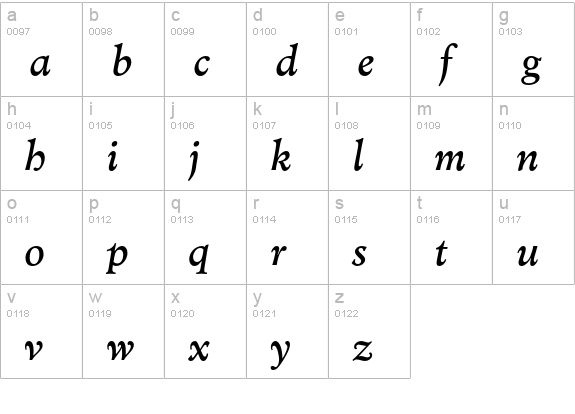
Minister Book Italic Font Details
Minister Book Italic is a comfortable, highly readable, italic variant in the Minister typeface family \xE2\x80\x94 well suited to long-form body text, articles, and editorial content.
Minister Book Italic font exudes a sophisticated elegance with its sleek and stylish design. Its italicized form adds a touch of flair and refinement to any text, making it perfect for conveying a sense of sophistication and professionalism. The smooth curves and balanced proportions of Minister Book Italic font make it a versatile choice for a wide range of design projects, from elegant invitations to sleek editorial layouts. Best of all, Minister Book Italic font is available for free download at FontsMarket.com. This means you can easily add this elegant font to your collection without breaking the bank. Whether you're working on a personal project or a professional design, Minister Book Italic font is sure to elevate your work with its timeless beauty and classic charm. Download it today and let your creativity soar with this exquisite typeface.